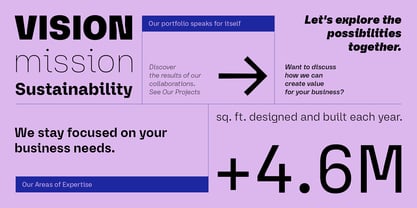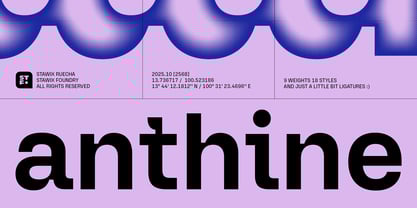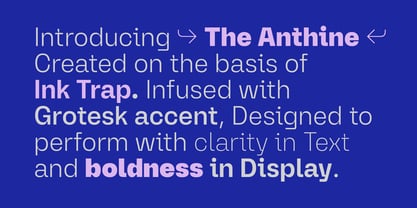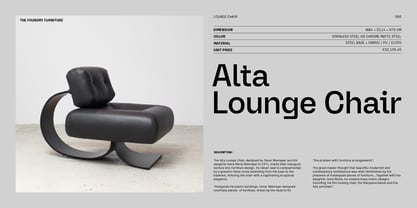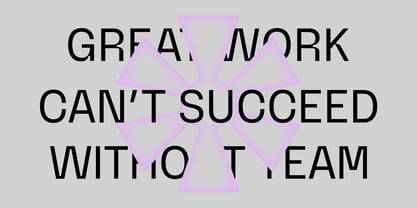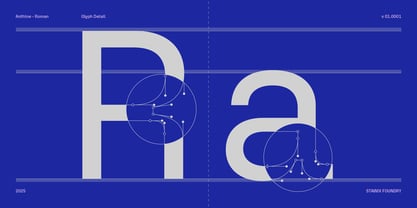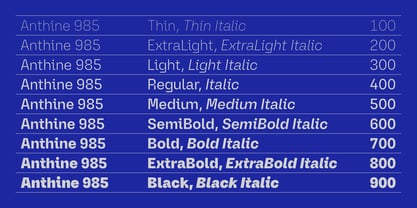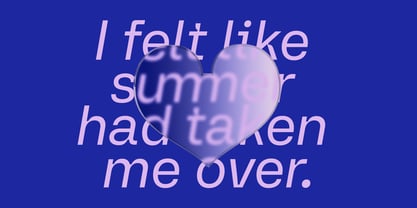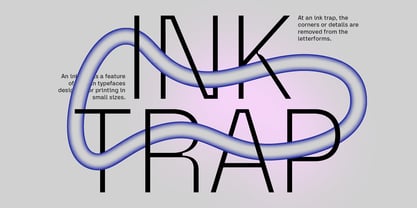
Anthine
by Stawix
The Anthine Font Family was designed by Stawix Ruecha and published by Stawix. Anthine contains 18 styles and family package options.
Anthine: Ink Traps Reimagined in Typography transcends mere shapes and letters; it is where clarity meets expression. Anthine encapsulates this philosophy by transforming subtle ink trap aesthetics into a defining feature. This choice results in a typeface characterized by sharp precision, modernity, and a distinct personality that commands attention.   With a range that includes nine weights and eighteen styles, Anthine offers remarkable flexibility, from lighter cuts to bold display forms. Its balanced proportions and unique details make it a versatile choice for branding, editorial, and digital projects, consistently delivering a strong visual impact. ... and Eastlane we miss you.